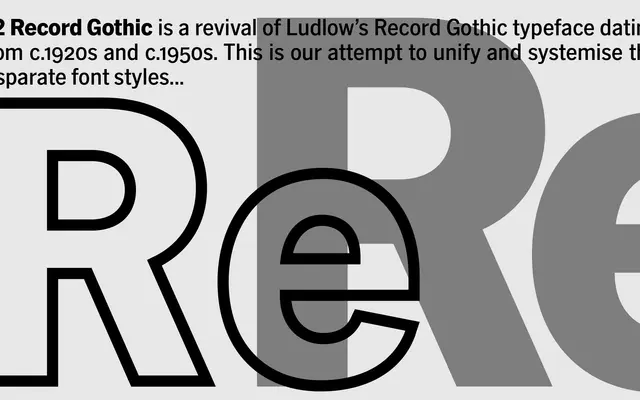
A2 Record Gothic
A revival of Ludlow's Record Gothic, tracing a lineage back to Morris Fuller Benton's News Gothic, expanded and systematised into a large extended family.
Ludlow's original Record Gothic began in the late 1920s as a single-weight copy of News Gothic, accruing bold, wide, condensed and extra-condensed styles piecemeal over subsequent decades. A2-Type have taken that historically irregular family and unified it into a coherent system spanning seven weights with italics, alongside Mono, Condensed, X Condensed, Stencil and Outline subfamilies. The result preserves the charm of the original's hybrid character while giving it the range needed for contemporary editorial and identity work.
A revival of Ludlow's Record Gothic, itself a copy of Morris Fuller Benton's News Gothic (1908), placing it firmly in the American grotesque tradition with the informal irregularities typical of that lineage.